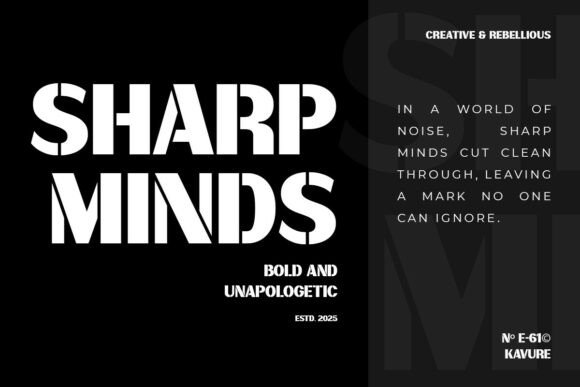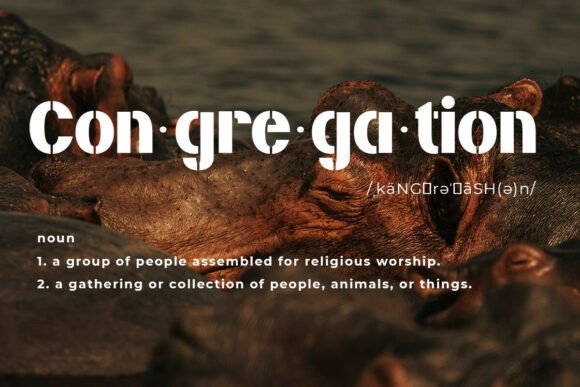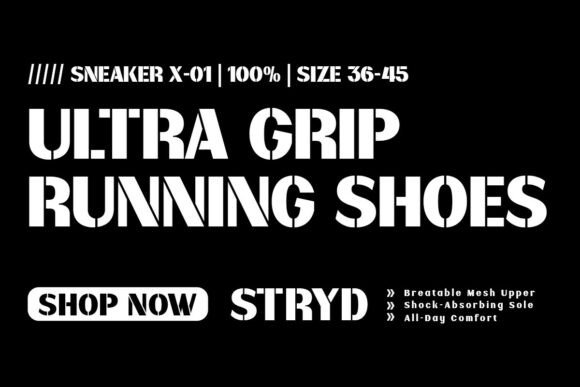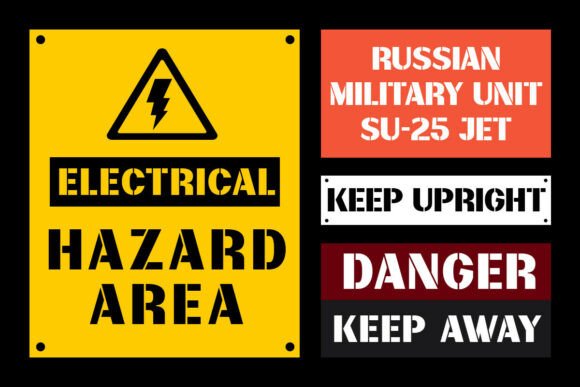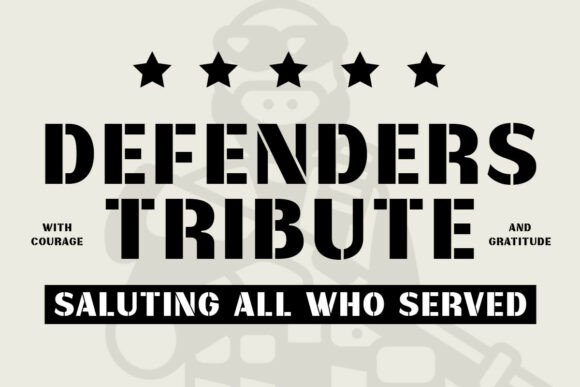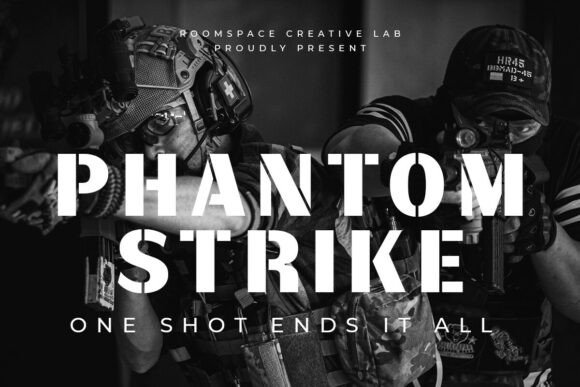
Introducing Gravion Falco: The Bold and Sharp Stencil Sans Serif Font
In the world of typography, fonts play a crucial role in shaping the visual identity of a brand or design project. For designers and crafters looking for a bold and sharp font that combines industrial strength with modern aesthetics, Gravion Falco is an excellent choice. This stencil sans serif font is designed to make a statement, with clean lines, geometric forms, and cutout details that give it a unique edge.
Industrial Strength Meets Modern Aesthetics
Gravion Falco is a font that seamlessly merges industrial strength with modern aesthetics. Its bold and sharp design makes it perfect for projects that require a strong, professional appeal. The font’s industrial look is balanced by its clean lines and geometric forms, which give it a modern and sleek appearance. This combination makes Gravion Falco an ideal choice for designers who want to create designs that stand out from the crowd.
Key Features of Gravion Falco
So, what makes Gravion Falco an excellent choice for designers and crafters? Here are some of its key features:
- Bold and Sharp Design: Gravion Falco is a bold and sharp font that makes a statement. Its sharp edges and clean lines give it a strong, professional appeal.
- Stencil Sans Serif: The font’s stencil sans serif design gives it a unique edge. The cutout details add a touch of industrial strength to the font.
- Geometric Forms: Gravion Falco features geometric forms that give it a modern and sleek appearance.
- Clean Lines: The font’s clean lines make it easy to read and versatile for various design projects.
Gravion Falco is a versatile font that can be used for various design projects. Its industrial yet modern look makes it ideal for:
- Logo Design: Gravion Falco is perfect for creating bold and memorable logos that make a statement.
- Branding: The font’s strong, professional appeal makes it an excellent choice for branding projects.
- Packaging: Gravion Falco can add a touch of industrial strength to packaging designs.
- Posters: The font’s bold and sharp design makes it perfect for creating eye-catching posters.
- Editorial Projects: Gravion Falco can add a touch of modern aesthetics to editorial projects, such as magazines and newspapers.
Why Choose Gravion Falco?
With so many fonts available, why choose Gravion Falco? Here are some reasons why designers and crafters should consider this font:
- Unique Design: Gravion Falco has a unique design that sets it apart from other fonts.
- Versatility: The font’s versatility makes it suitable for various design projects.
- Professional Appeal: Gravion Falco has a strong, professional appeal that makes it perfect for projects that require a bold and modern look.
In conclusion, Gravion Falco is a bold and sharp stencil sans serif font that combines industrial strength with modern aesthetics. Its clean lines, geometric forms, and cutout details make it an excellent choice for designers and crafters looking for a font that makes a statement. With its versatility and professional appeal, Gravion Falco is perfect for various design projects, including logo design, branding, packaging, posters, and editorial projects. If you’re looking for a font that stands out from the crowd, Gravion Falco is an excellent choice.